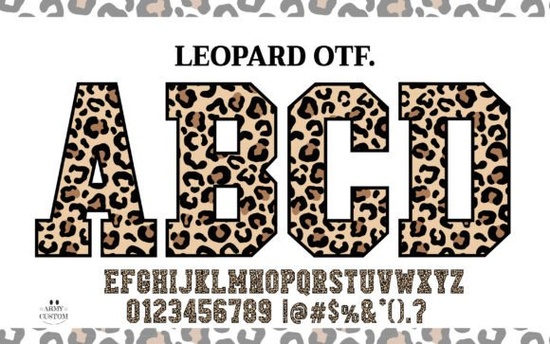
If you're searching for a bold, eye-catching typeface that brings personality and attitude to your projects, the Leopard Varsity Font Font is worth a close look. Inspired by the iconic patterns of a leopard's coat, this color font blends the sporty feel of a classic varsity letterman style with fierce, untamed animal print textures. It's designed for creatives who want their text to stand out whether that's on a T-shirt, a social media post, or a party invitation.
What Makes the Leopard Varsity Font Different From Regular Fonts?
Most fonts you download are flat, single-color letterforms. This one is different. The Leopard Varsity Font is a color font, meaning the characters carry built-in color and texture in this case, realistic leopard print patterns layered over bold varsity-style outlines.
Here's what that means in practice:
- No extra editing needed. The leopard texture is already part of the letterforms. You don't need to overlay patterns or apply clipping masks in Photoshop.
- Includes a black version. The solid black variation is compatible with Cricut Design Space and other cutting machines, so crafters can use it for vinyl decals, iron-on transfers, and paper projects.
This dual functionality colorful for digital design and black for cutting machines makes it a flexible choice for a wide range of creative workflows.
Who Is This Font Best Suited For?
This font speaks to anyone working on projects that need a fun, bold, and slightly wild visual vibe. Here are a few groups who might find it especially useful:
- Print-on-demand sellers designing apparel, mugs, tote bags, or phone cases with animal-themed or sports-inspired graphics
- Small business owners creating branding materials for boutiques, salons, or fitness studios with a bold aesthetic
- Crafters using Cricut or Silhouette machines who want a varsity-style font that cuts cleanly in its black version
- Graphic designers working on posters, flyers, or social media content that needs to grab attention fast
- Party planners and hobbyists making invitations, banners, or scrapbook pages with a jungle or safari theme
What Types of Projects Work Well With a Leopard Print Font?
Because of its textured, colorful nature, this font works best in projects where the lettering is large enough to show off the leopard pattern. Small body text won't do it justice. Here are some project ideas where it really shines:
- T-shirt designs with a back-to-school or team spirit theme
- Bold social media headers and Instagram story graphics
- Event banners and signage for themed parties
- YouTube thumbnails or podcast cover art
- Stickers, labels, and gift tags for craft projects
- Sublimation designs for drinkware and accessories
Does It Work With Cricut and Cutting Machines?
Yes with an important detail. The black version of this font is the one designed for compatibility with Cricut Design Space, Silhouette Studio, and similar cutting software. Color fonts typically don't render properly in these programs, so the solid black variant solves that problem.
When using it with a cutting machine, keep these tips in mind:
- Use the black version for all cutting projects
- Weld or attach letters in Cricut Design Space to keep spacing consistent
- Size your text appropriately very small cuts may lose detail in the leopard pattern outlines
Is the Leopard Varsity Font Worth Downloading?
If your creative work leans into bold, playful, or animal-inspired aesthetics, this font fills a niche that most standard fonts don't. The combination of varsity lettering and leopard texture gives you a ready-made design element that saves time in production. You won't need to find separate patterns and layer them manually the font handles that for you.
It's also part of a broader collection of colorful display fonts available on Creative Fabrica, so if you like this style, you'll likely find others that complement it well for themed design sets.
Quick Checklist Before You Buy
- ✅ You need a display font for large text not body copy
- ✅ You want built-in leopard print texture without manual editing